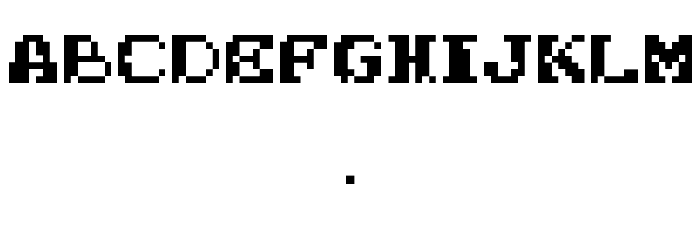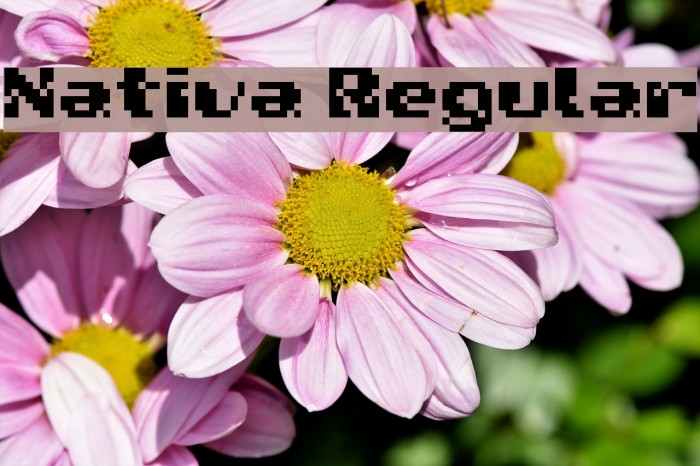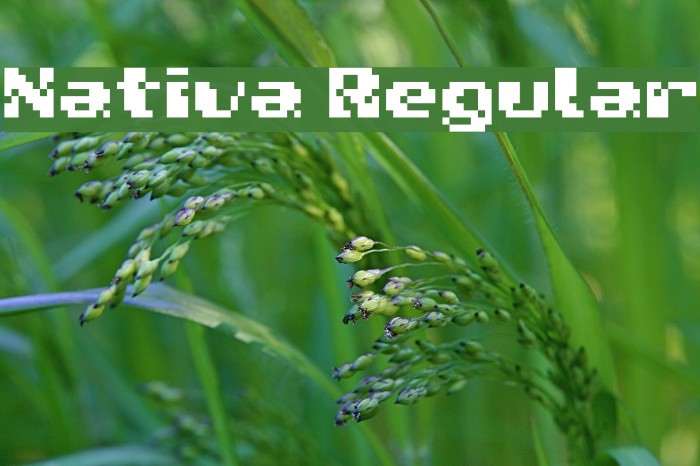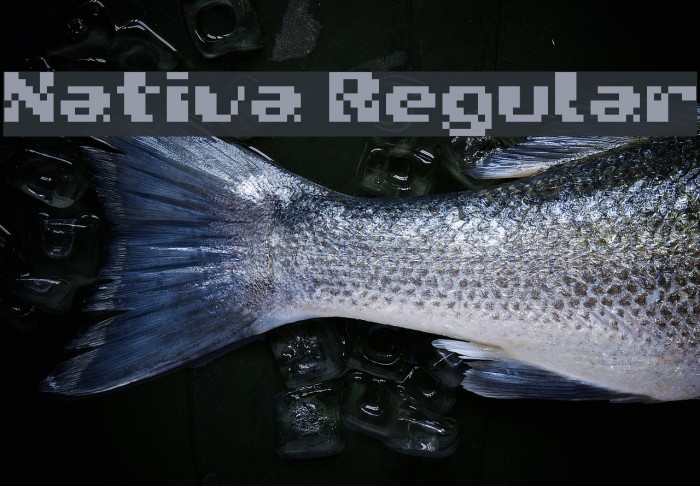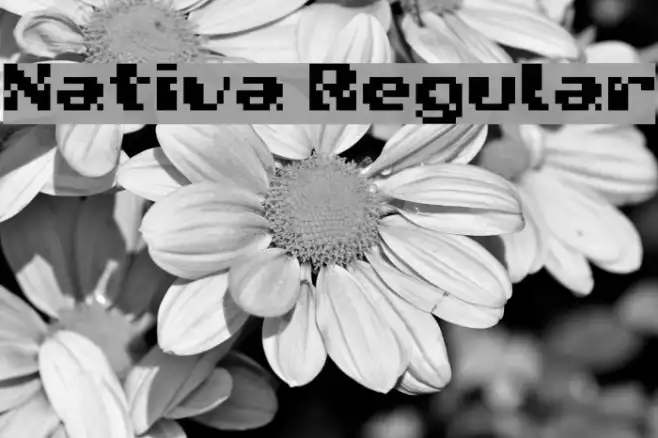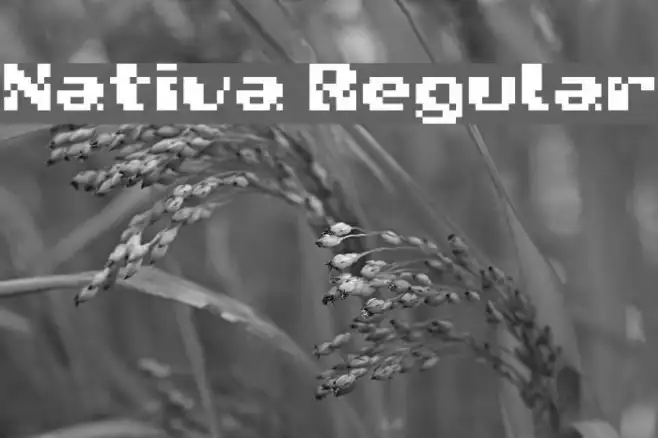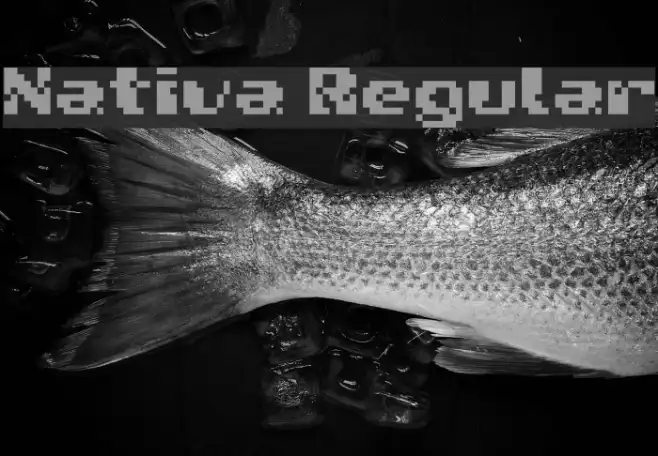
Nativa Regular Font
This font features a bold, pixelated style reminiscent of early digital typography. The characters are constructed with a blocky, grid-like appearance, giving it a distinctly retro and digital feel. The uppercase and lowercase letters maintain a consistent width, contributing to a uniform look across the text. The numbers and special characters follow the same pixelated design, ensuring a cohesive appearance. This font is ideal for projects that aim to evoke nostalgia for early computer graphics or video games.
A bold, pixelated font with a retro digital style.
- Proposed Projects: Perfect for retro video game designs, digital art projects, and any creative work that seeks to capture the essence of early computer graphics.
- Overall Style: Retro, Digital
- Use Case: Logos, Headlines, Digital Art